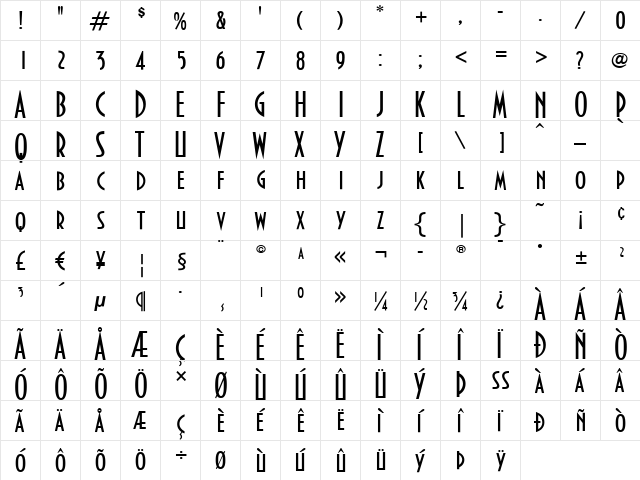
Bankir-Retro Regular
Design Context for Bankir-Retro Typeface
Bankir-Retro has the warm character of retro typography — evoking diners, record sleeves, and the golden age of print advertising.
Font Pairing: Combine Bankir-Retro with a simple slab or neutral sans — period-accurate companions reinforce the vintage feel without competing for attention.
Pro Tip: Lean into Bankir-Retro's period character by pairing it with aged paper textures, muted colour palettes, and vintage illustration styles.